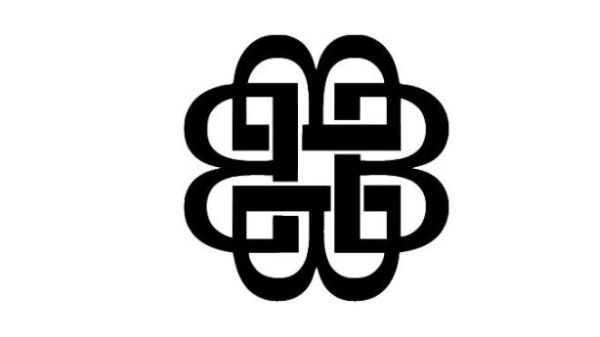
Breaking Benjamin Font
BandBreaking Benjamin is an American rock band formed in Wilkes-Barre, Pennsylvania in 1998.
The logo above, according to the band, is a variation of the Celtic knot, with four interlocking “B”s. The logo is tattooed on the left wrist of Ben Burnley, AAron Fink and Mark James Klepaski and the right wrist of Chad Szeliga. The logo and its variations can be seen on all their releases so far. The “B” in the logo is very similar to a sans serif named Butter, download it for free here.
A variation of the interlocking “B”s logo above, featuring serifed and sharp-edged “B”s, as seen on the cover of Shallow Bay: The Best of Breaking Benjamin and the official website.
The logotype as seen on all their releases, set in Eidetic Neo Omni.